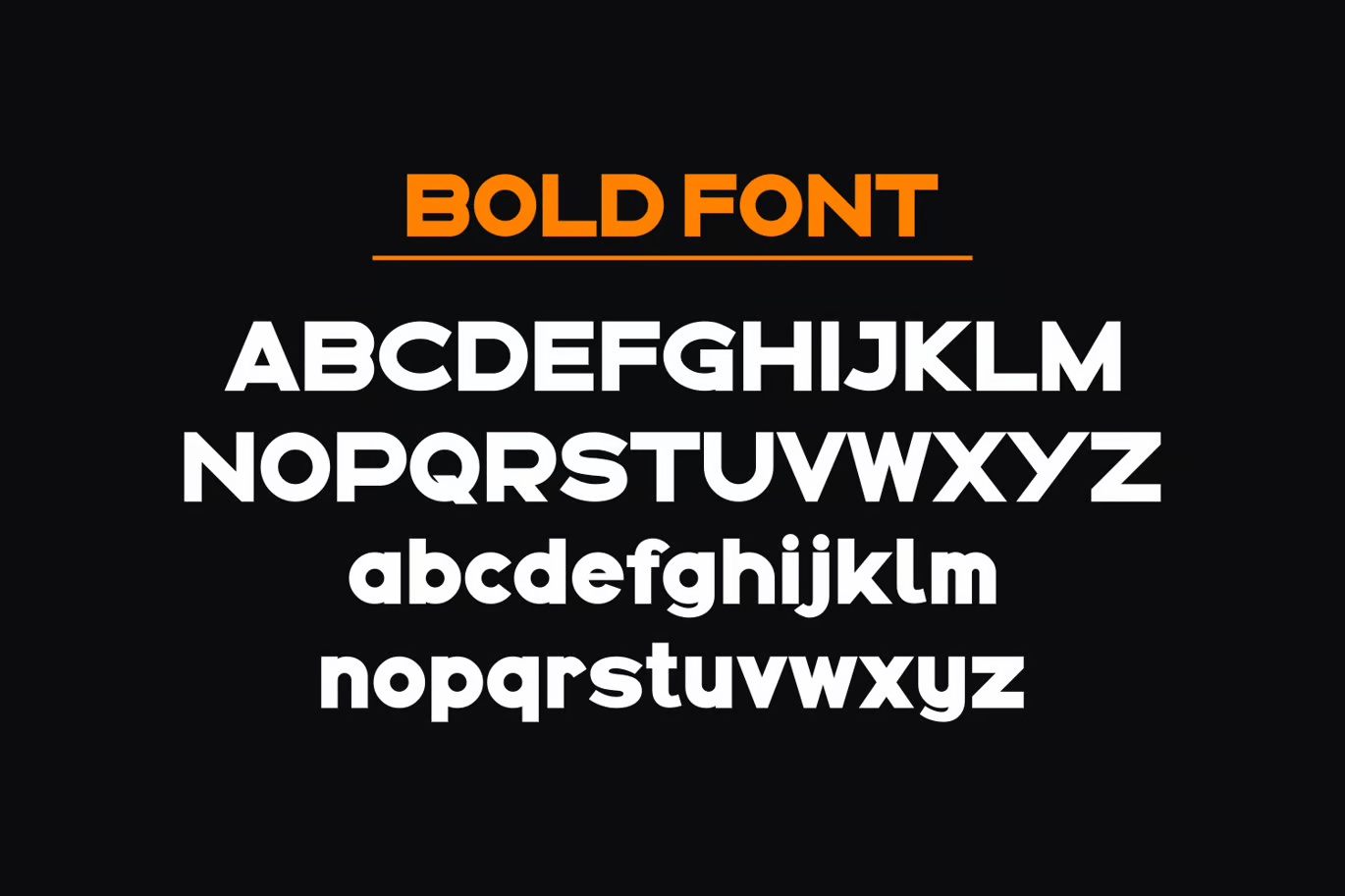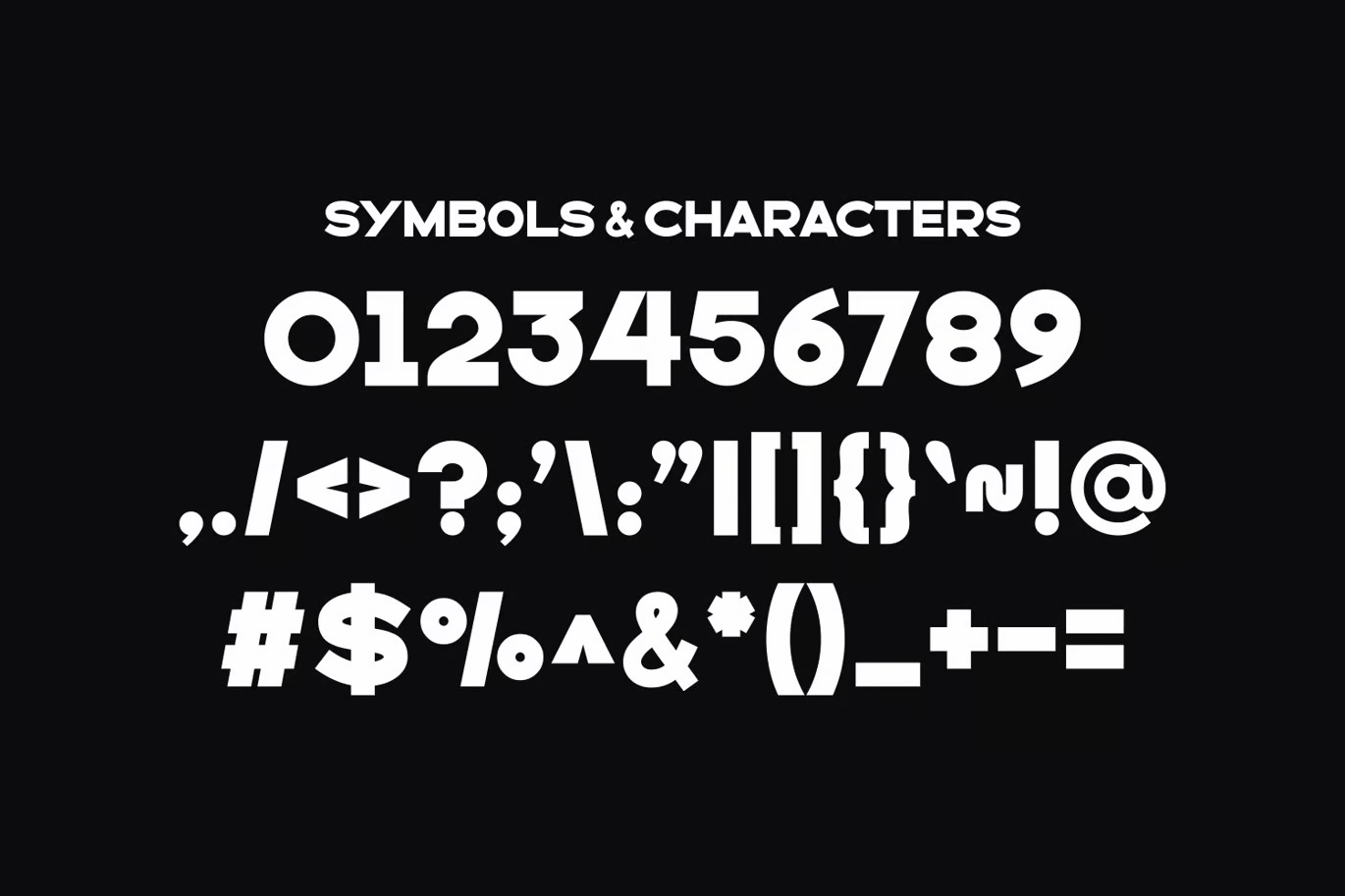
Maskut is wide and heavy, with round bowls and flat terminals. Elvien Daru released it in 2024 in two weights, Bold and Medium. The Bold title on black, with an orange underline, has the solid look of a sports or streetwear logo.
Best uses for Maskut
- Logos and wordmarks
- Banners and billboards
- Streetwear and sports branding
- Book and album covers
- YouTube thumbnails
Maskut is heavy, so a lighter face gives contrast. Inter works for body copy. Montserrat in Light keeps a geometric feel. For a serif, try Libre Baskerville.
Maskut Sans-Serif Modern Font